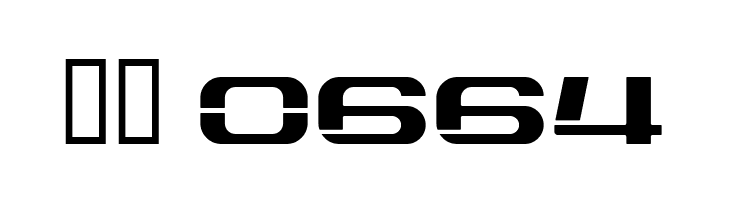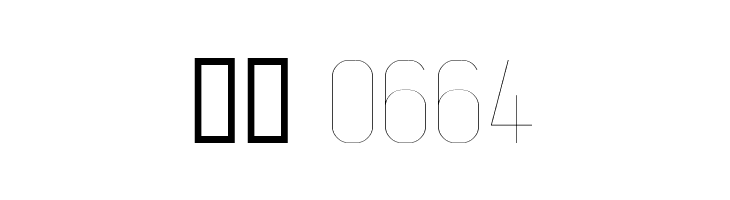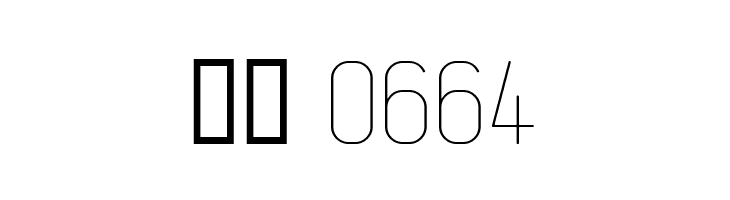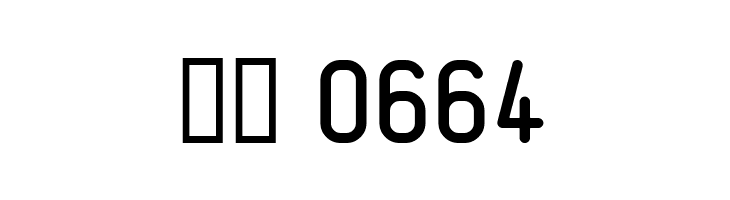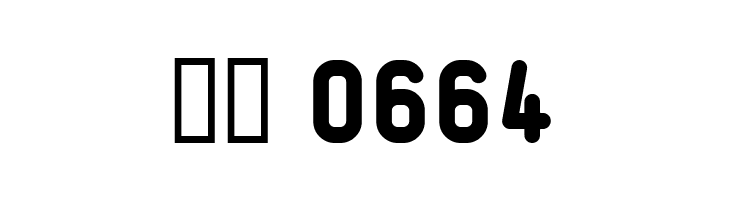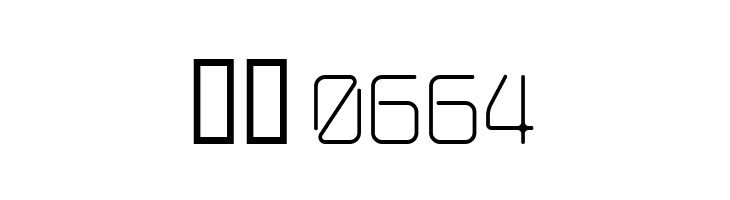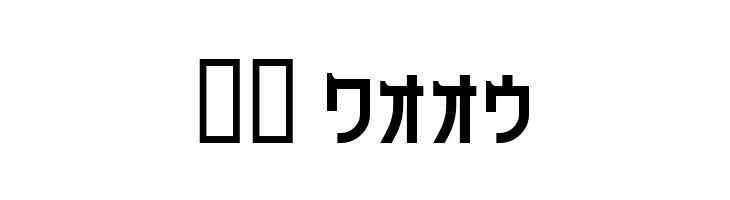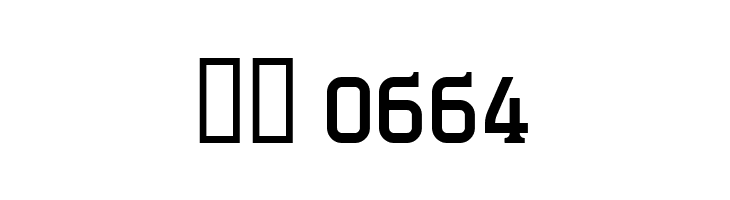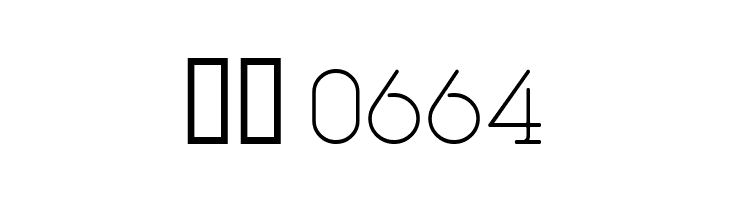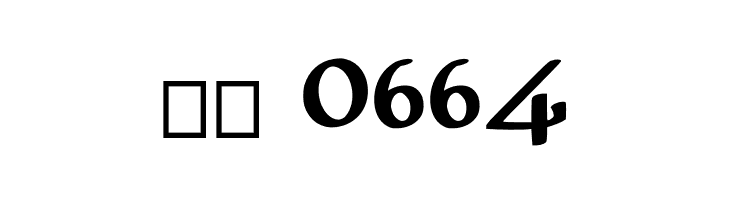
( Fonts by Maniackers Design - www.mksd.jp OFF SITE )
A playful, decorative font with bold characters enclosed in circles.
( Fonts by Maniackers Design - www.mksd.jp OFF SITE )
A playful 3D box font with each character inside a cube, perfect for creative projects.
( Fonts by Maniackers Design - www.mksd.jp OFF SITE )
A playful, button-like font with characters encased in circular outlines, ideal for creative projects.
A bold, geometric font with sharp angles and a modern aesthetic.
( Fonts by Maniackers Design - www.mksd.jp OFF SITE )
A bold, rounded font with smooth, consistent strokes and a friendly appearance.
( Fonts by Maniackers Design - www.mksd.jp OFF SITE )
A modern sans-serif font with rounded edges and a clean, approachable style.
( Fonts by Maniackers Design - www.mksd.jp OFF SITE )
A modern, rounded font with a clean and friendly appearance.
( Fonts by Maniackers Design - www.mksd.jp OFF SITE )
A modern, ultra-light font with geometric shapes and rounded edges.
( Fonts by Maniackers Design - www.mksd.jp OFF SITE )
A modern, ultra-light, rounded font with a minimalist design.
( Fonts by Maniackers Design - www.mksd.jp OFF SITE )
A modern, ultra-light geometric font with a sleek and minimalistic design.
( Fonts by Maniackers Design - www.mksd.jp OFF SITE )
A bold, futuristic font with geometric shapes and strong presence.
( Poemhaiku - Huong Le Thi Thu - www.behance.net/poemhaiku )
A hand-drawn, twig-like font with an organic, rustic style.
( -arnaud- )
A playful, modern font with rounded, bold uppercase and smooth lowercase letters.
( -arnaud- )
A playful, bold font with rounded edges and a slightly condensed style.
( Fonts by Maniackers Design - www.mksd.jp OFF SITE )
A bold slab serif font with a strong, authoritative appearance.
( Fonts by Maniackers Design - www.mksd.jp OFF SITE )
A bold slab serif font with strong, block-like serifs and a robust design.
( Fonts by Maniackers Design - www.mksd.jp OFF SITE )
Bold, geometric sans-serif Japanese font with strong, clean lines.
( Fonts by Maniackers Design - www.mksd.jp OFF SITE )
A modern, geometric font with clean lines and a minimalist style.
( Fonts by Maniackers Design - www.mksd.jp OFF SITE )
A modern, geometric font with clean lines and balanced spacing.
( Fonts by Maniackers Design - www.mksd.jp OFF SITE )
A bold, rounded font with a modern and approachable style.
( Gulash - www.czcionki.com/gulash.html )
A bold, jagged font with a rugged, hand-cut appearance.
( memesbruh03 - Aaron D. Chand )
A pixelated, retro-style font with a digital, blocky appearance.
( Fonts by Maniackers Design - www.mksd.jp OFF SITE )
Bold, geometric font with a modern, futuristic style.
( Daniel Kano - be.net/dsk )
A tall, narrow, and modern font with consistent stroke width and geometric elements.
( Fonts by CrazeCo.com.au OFF SITE )
A bold, graffiti-inspired font with dynamic, interconnected forms.
( Fonts by www.twopeasinabucket.com )
A playful, hand-drawn font with tall, narrow characters and a whimsical style.
A bold, geometric font with a digital, futuristic style.
( Fonts by www.fenotype.com )
A bold, distressed font with a gritty, urban aesthetic.
( Fonts by Emil Bertell - www.fenotype.com )
A bold, distressed font with a gritty, urban aesthetic.
( Fonts by Linseed Studio. OFF SITE )
A playful 3D sketch-style font with a hand-drawn, shadowed appearance.
( MaxMido - www.behance.net/maxmido )
Bold, slanted font with angular characters and tight spacing.
A geometric, pixelated font with a futuristic, digital aesthetic.
A bold, geometric font with a digital, pixelated style.